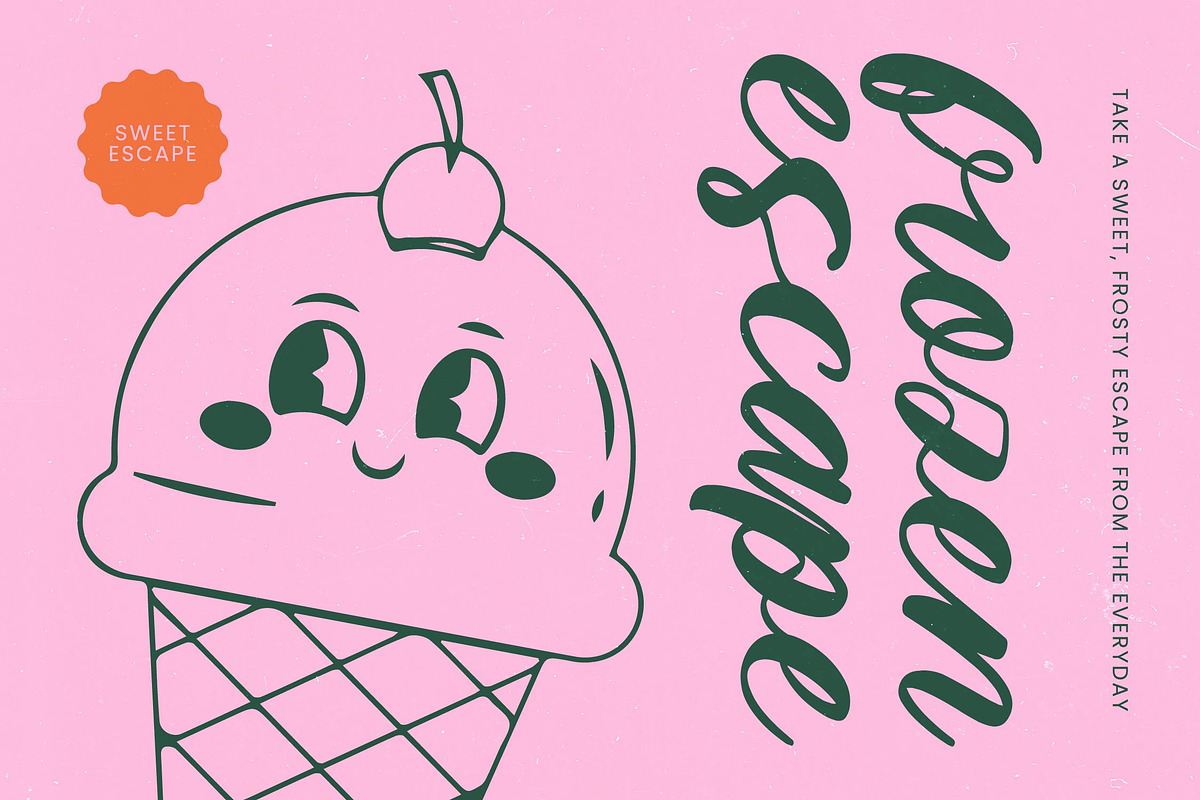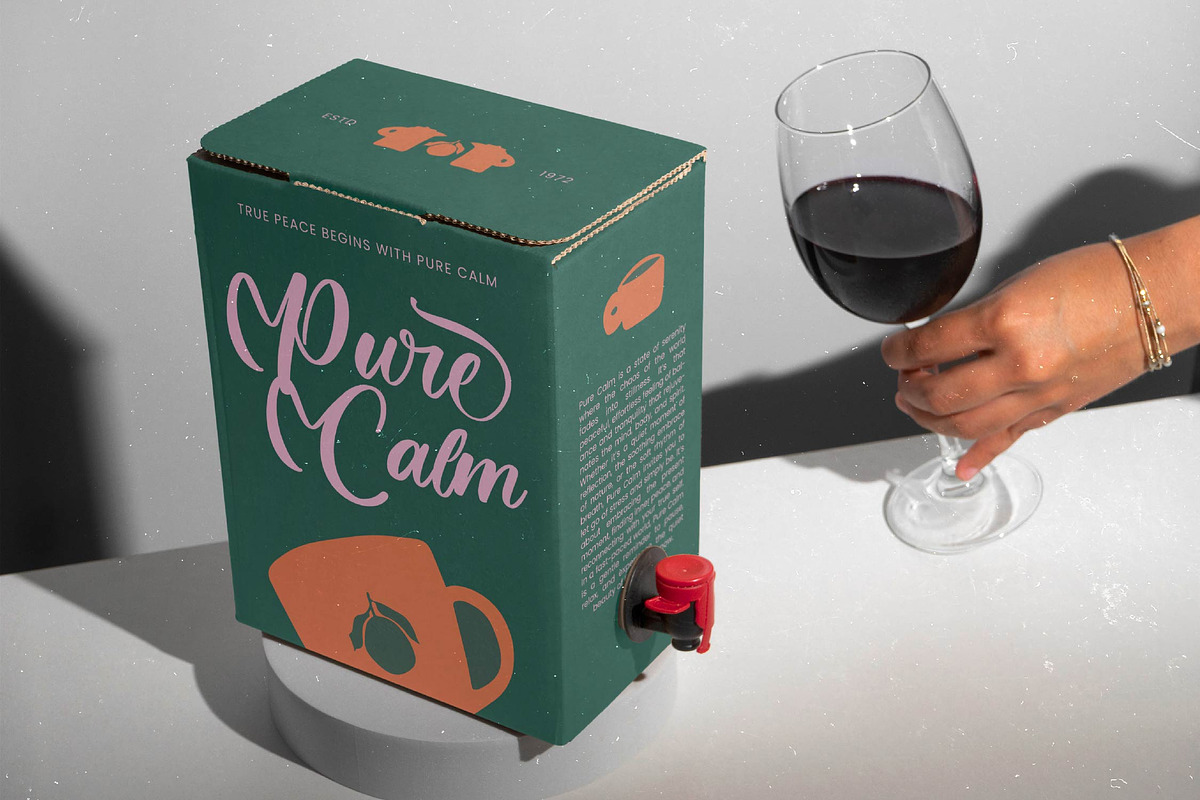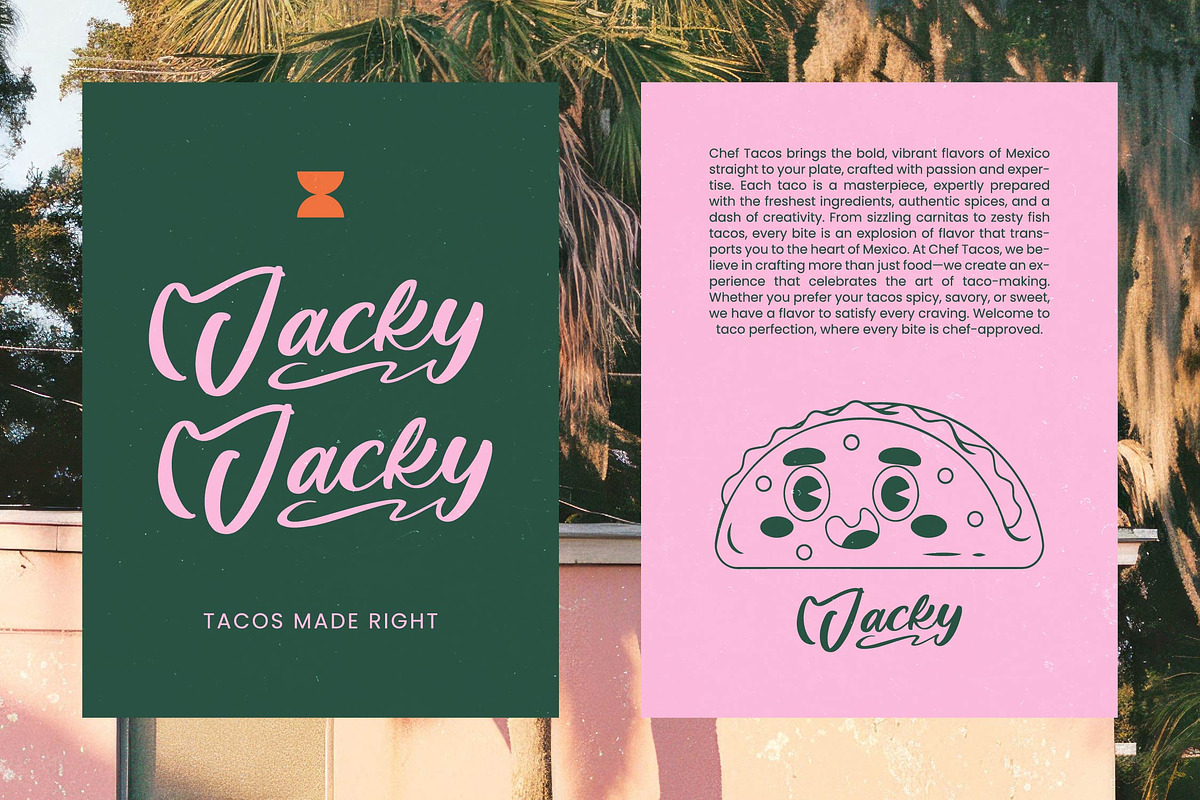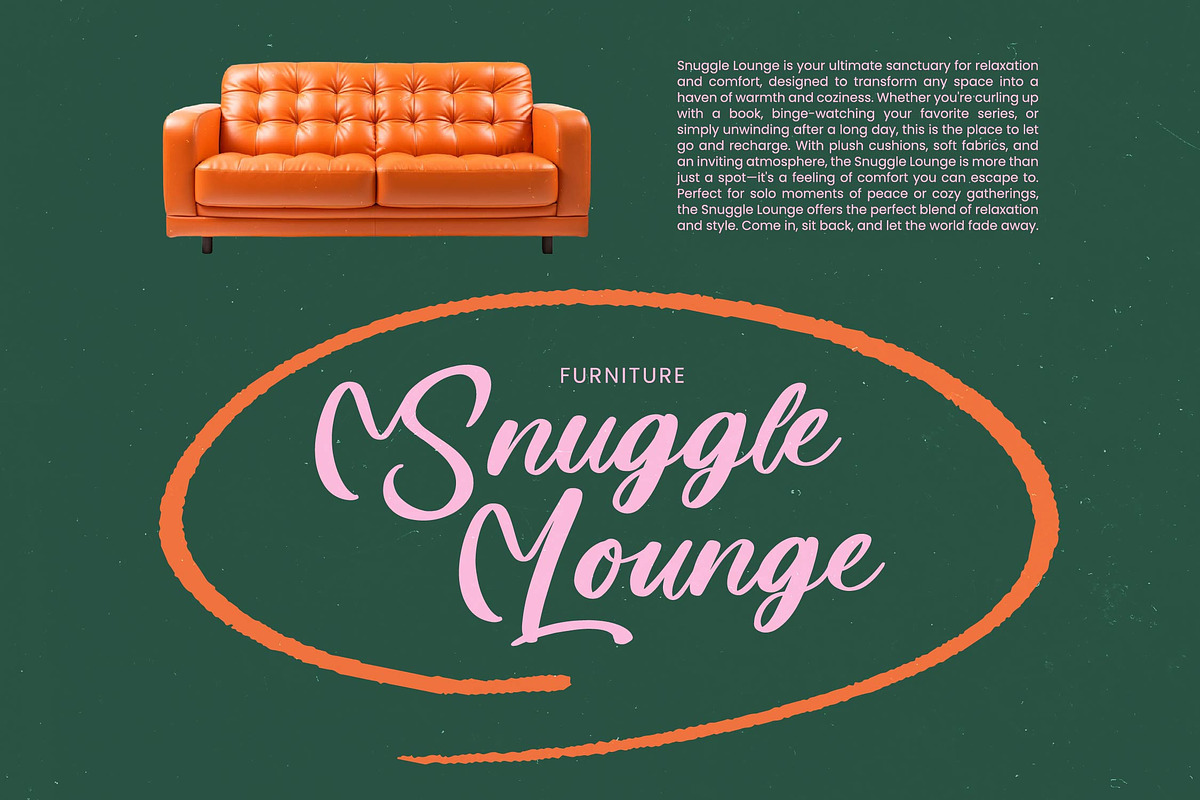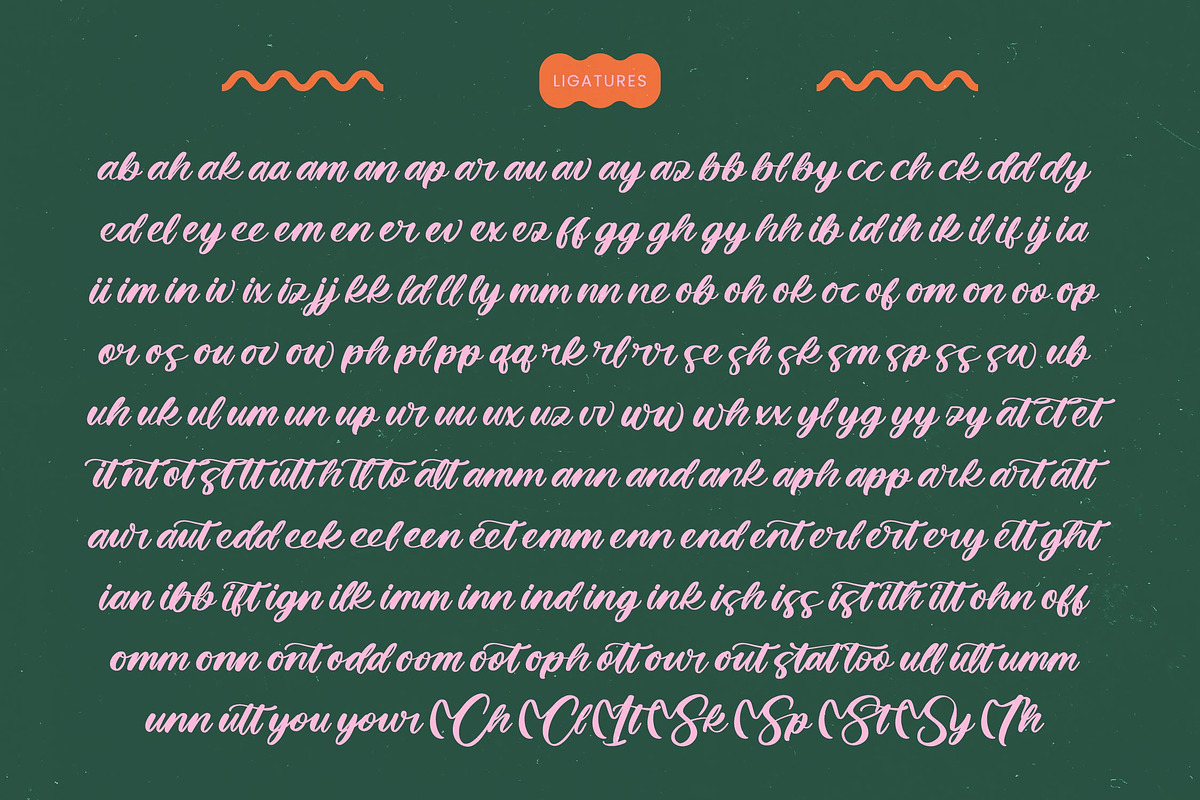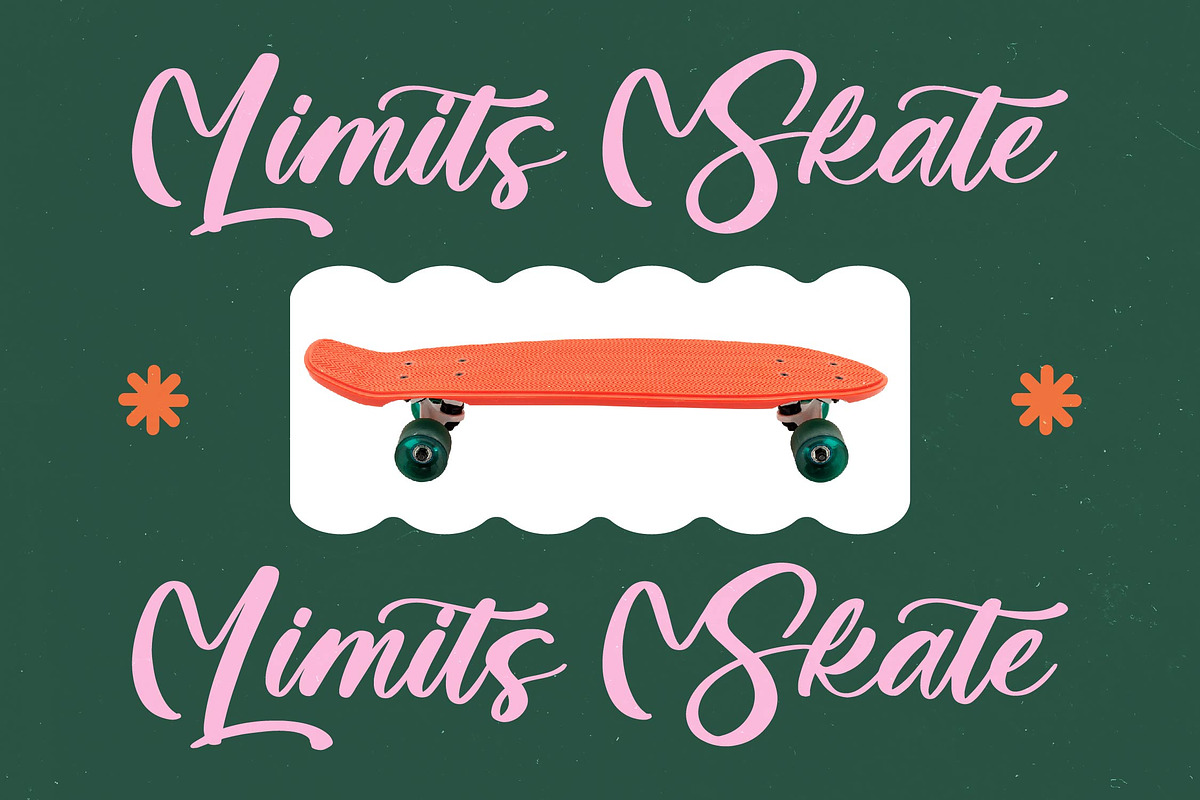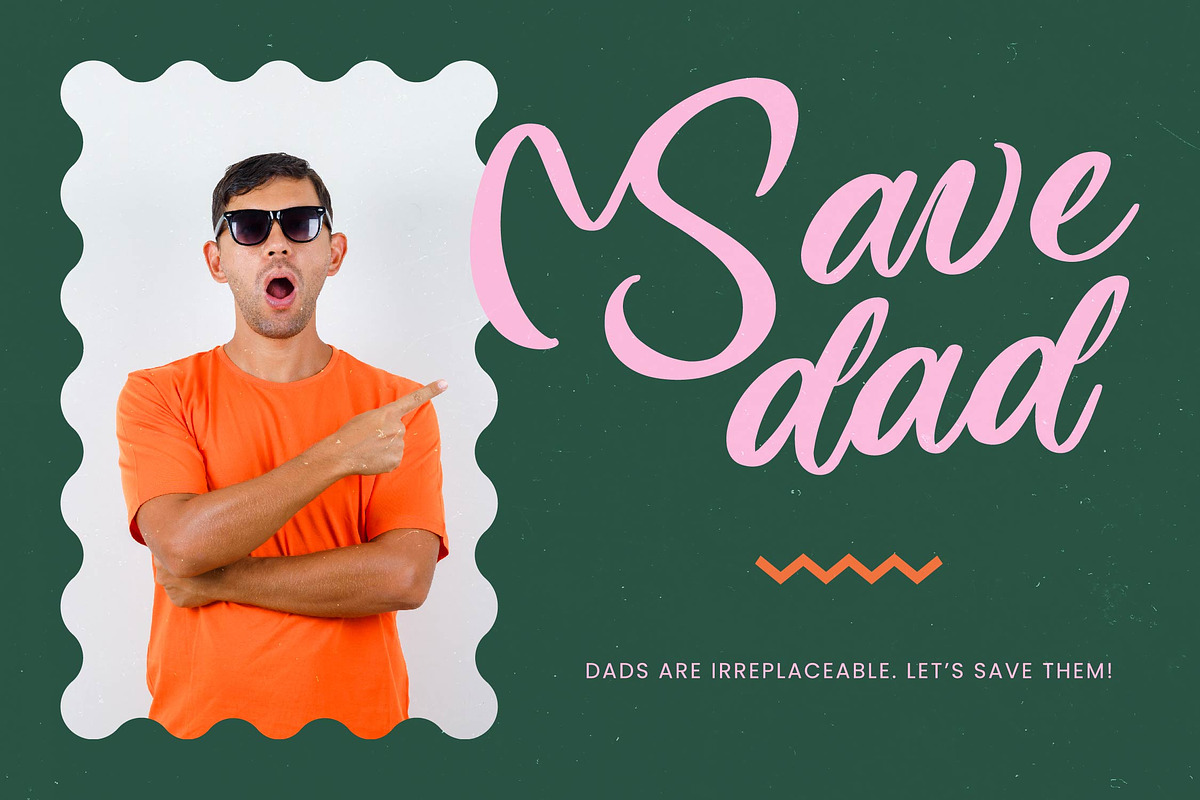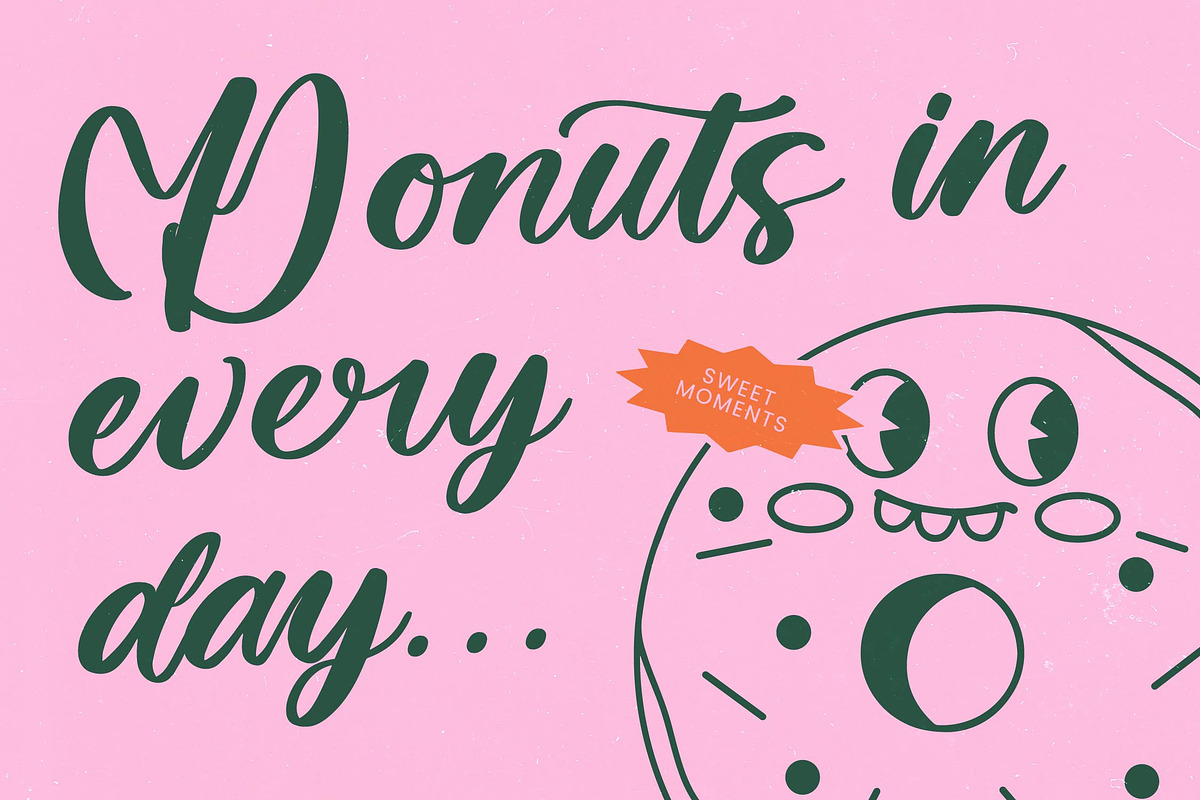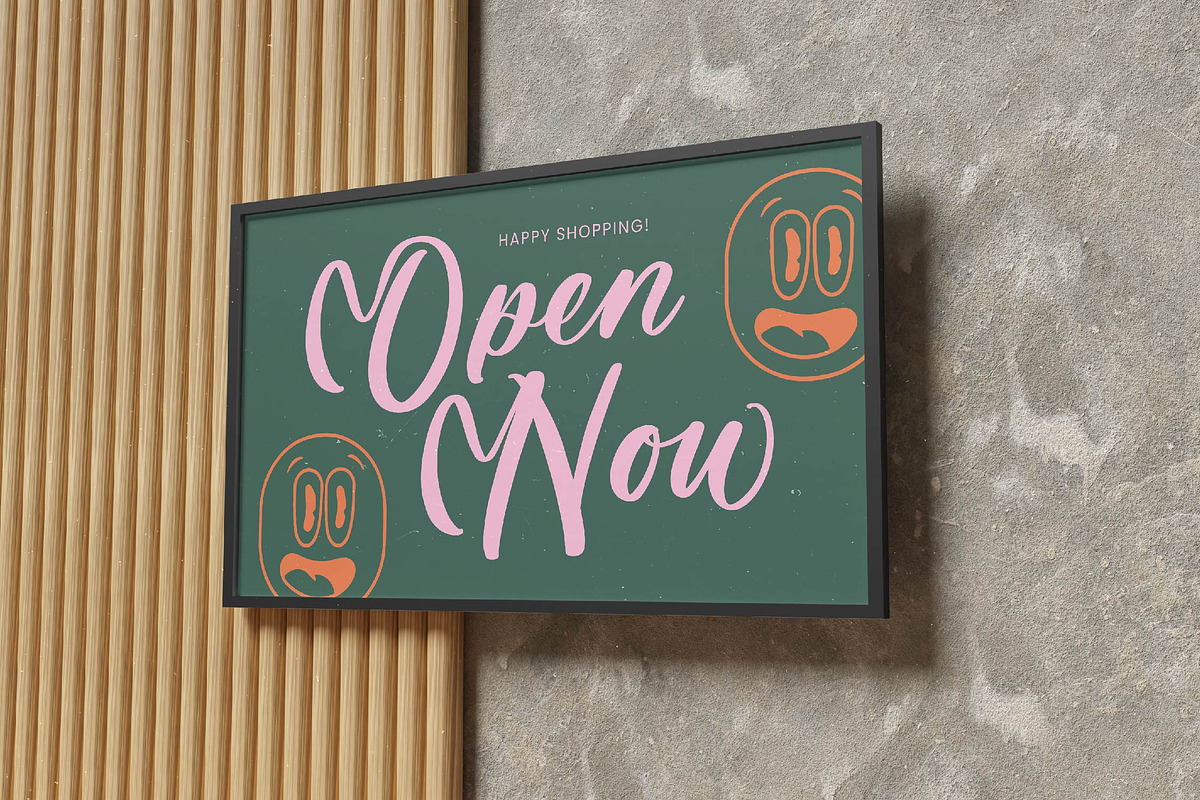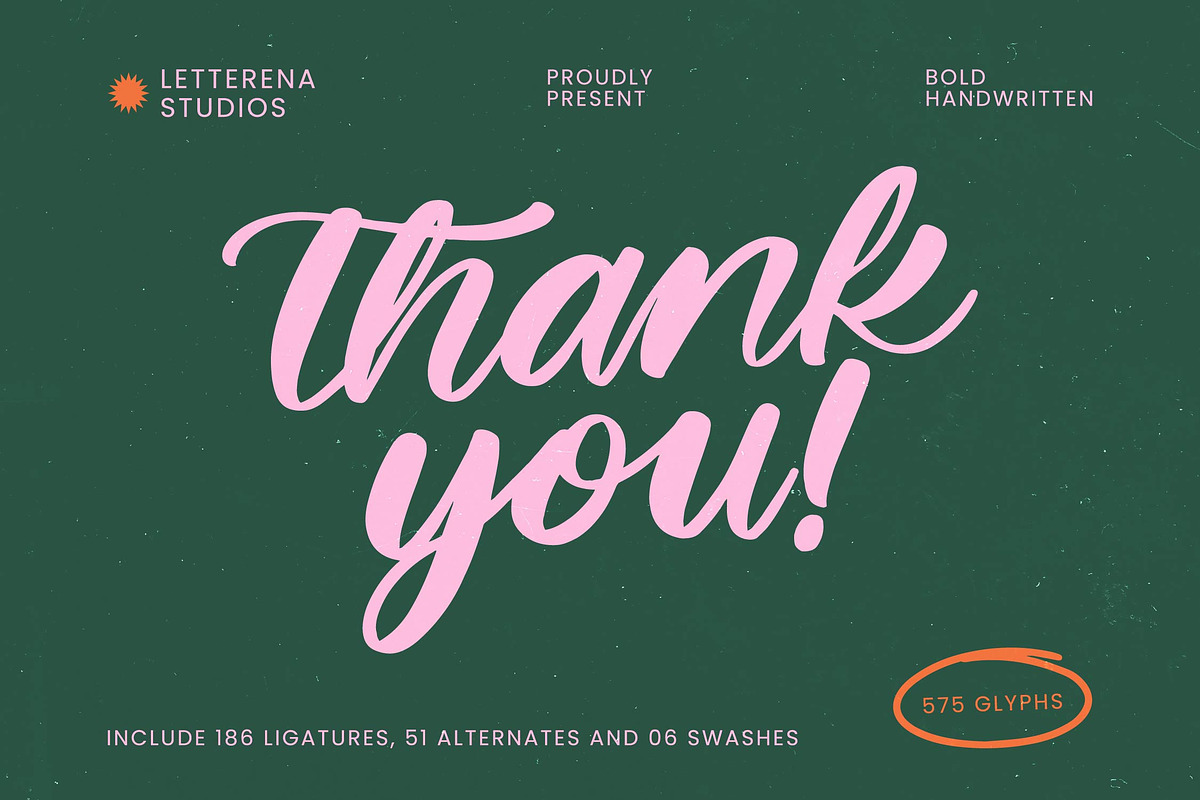
Mintac Bold Handwritten Font
Mintac - Bold Handwritten Font , Mintac is a bold handwritten script font crafted with energetic strokes, smooth curves, and a confident brush texture. Designed for eye-catching headlines and expressive branding, Mintac brings a modern handcrafted feel to any project. Its sweeping swashes, dynamic ligatures, and 51 alternates give designers wide creative flexibility, making it ideal for logos, packaging, social media graphics, merchandise, greeting cards, and bold typographic compositions. With 186 ligatures, 51 alternates, 6 swashes, and 575 total glyphs, Mintac delivers both personality and versatility—perfect for anyone who wants a handwritten script that stands out with style and bold character.